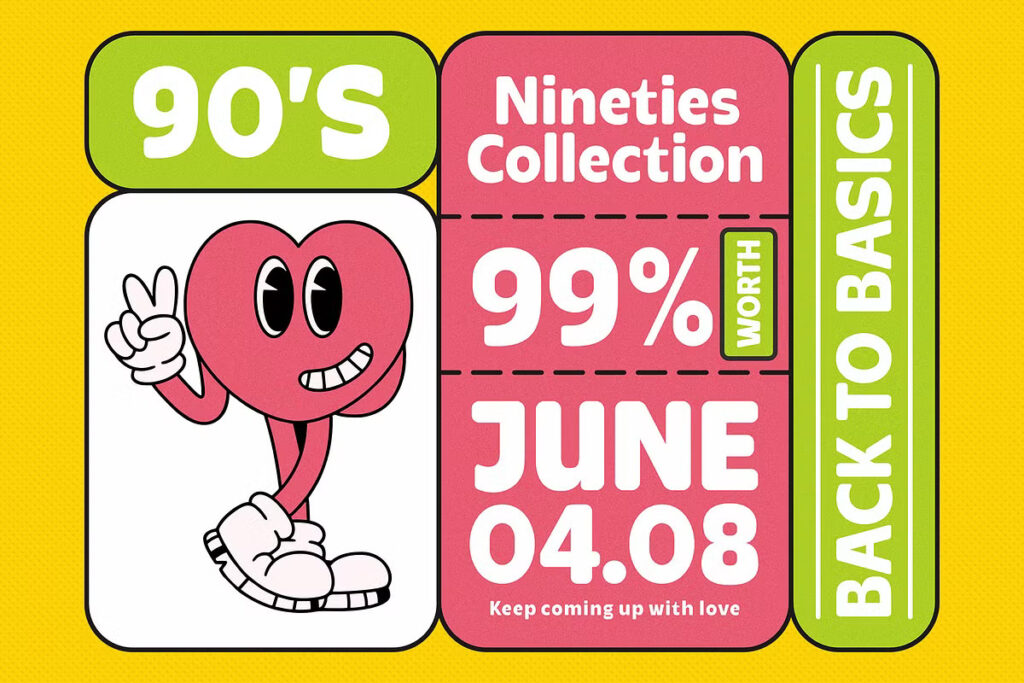
Cartenz Font Family
The Cartenz Typeface features a sleek and smooth design, with refined lines and subtle curves that give it a modern, fashionable appeal. Its clean, straight cuts, combined with minor curved details, make it both stylish and highly readable. This versatility allows it to be seamlessly integrated into a wide range of design projects, from logos and posters to greeting cards, promotional materials, and branding.
Cartenz Sans Serif Font Family